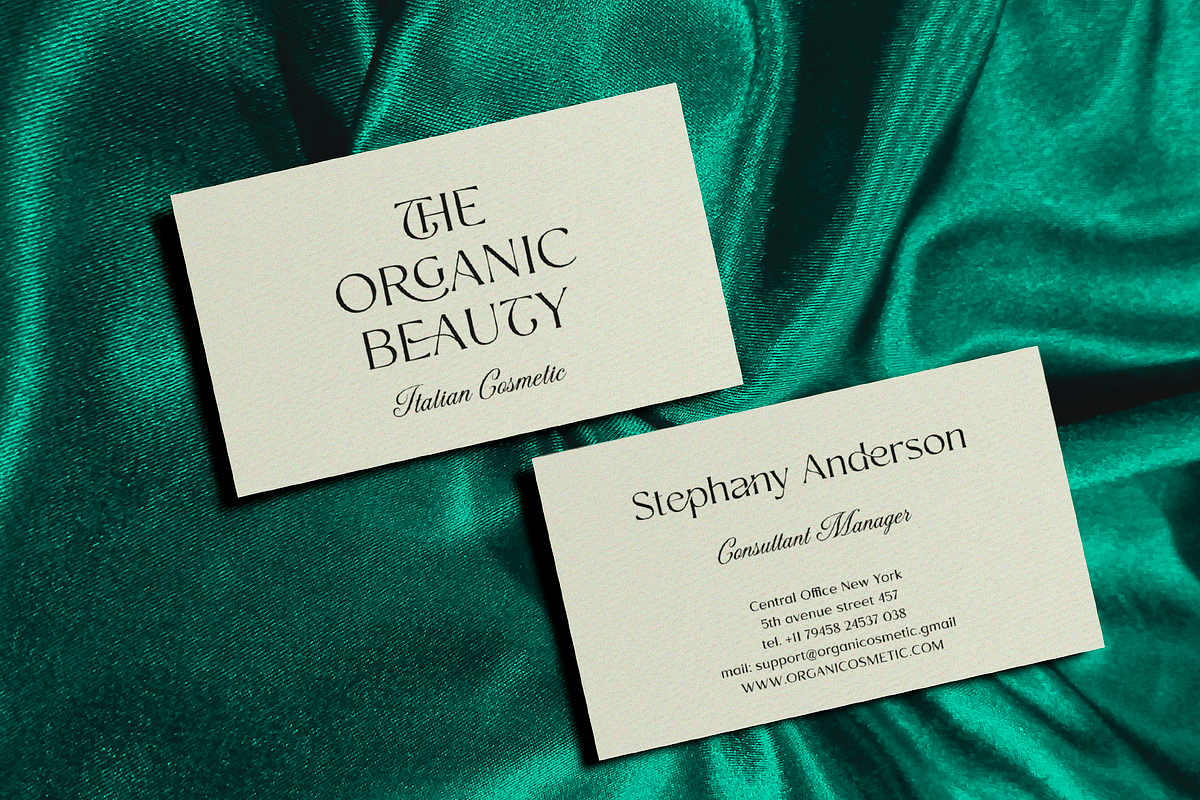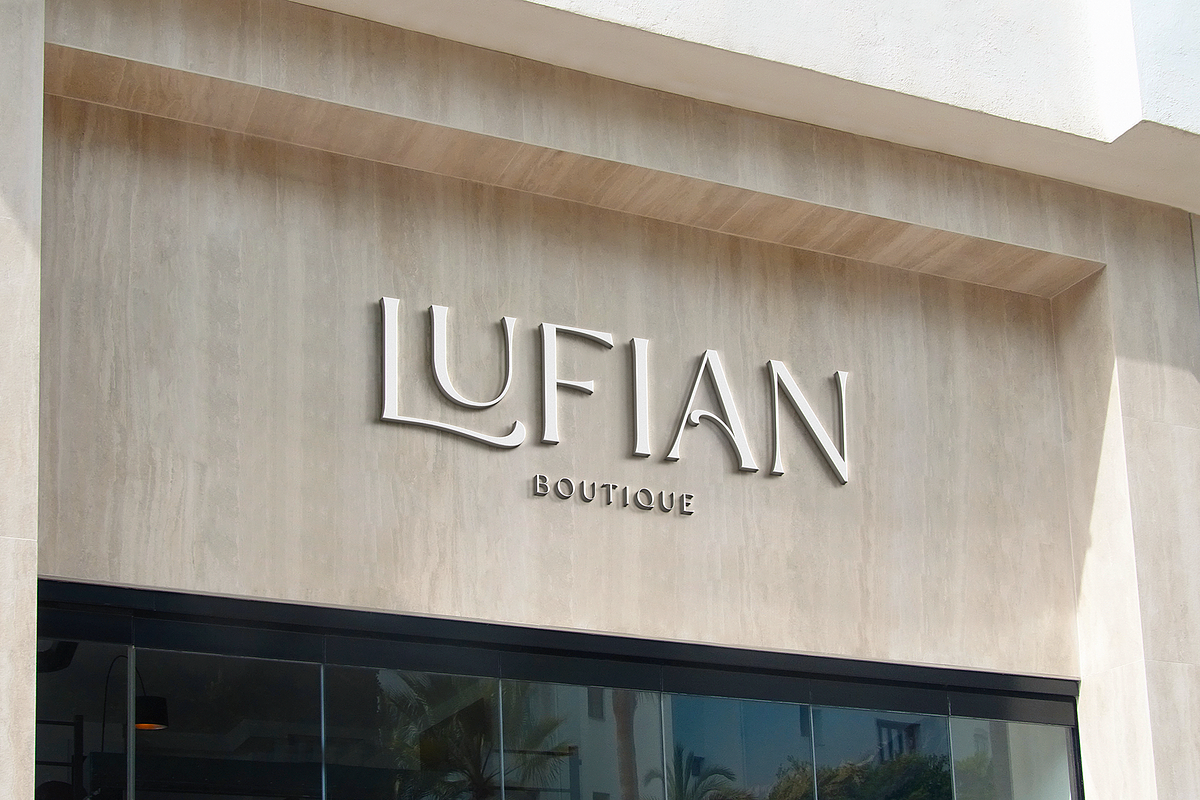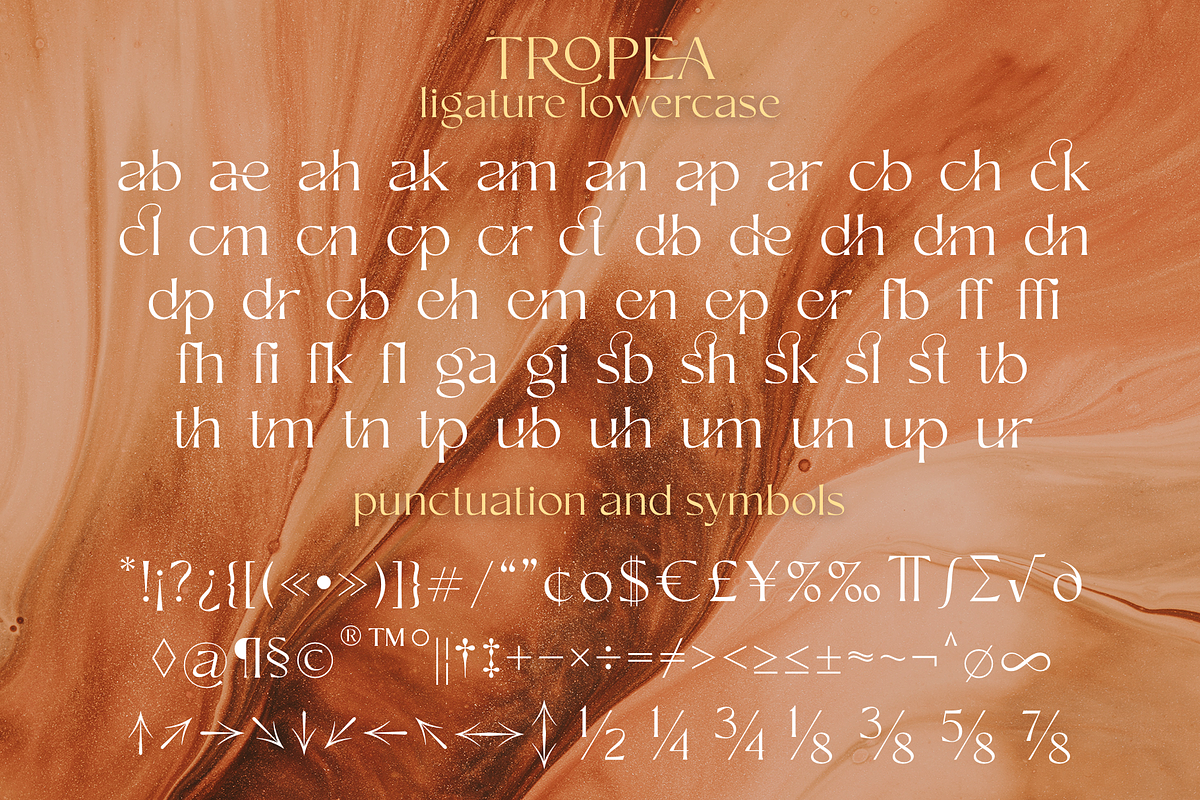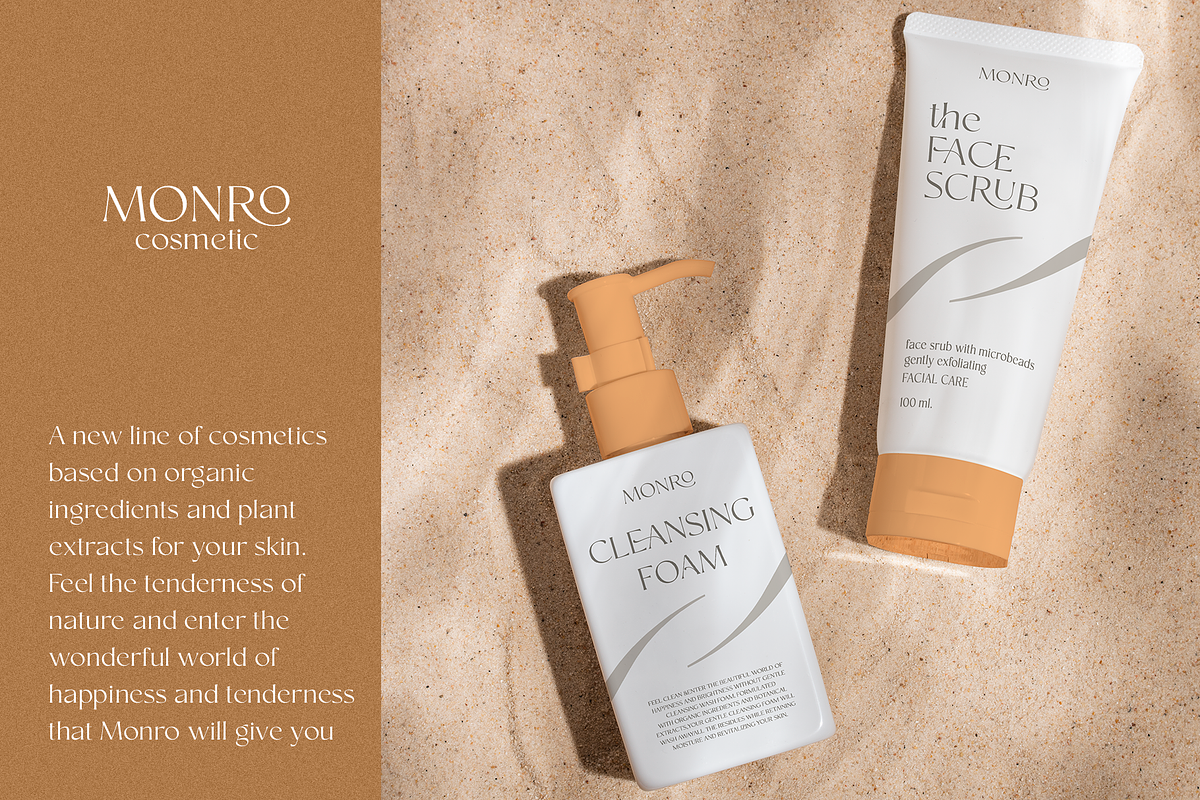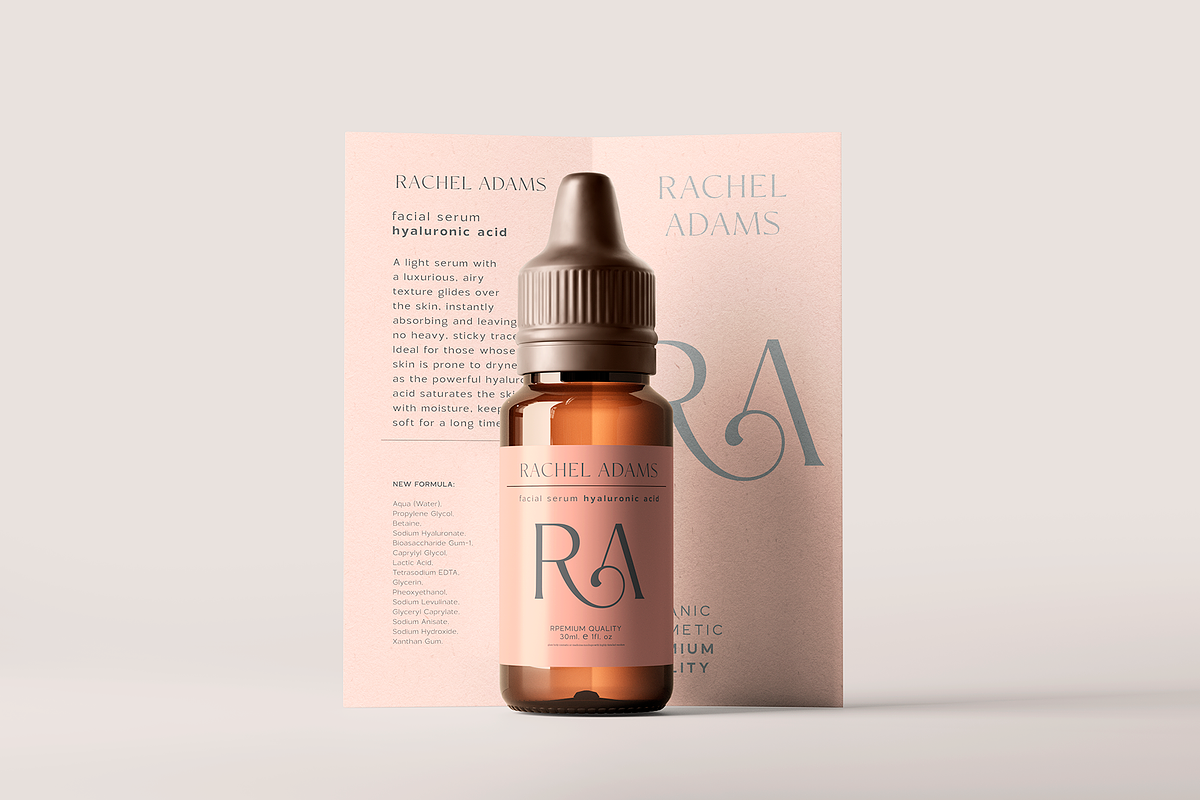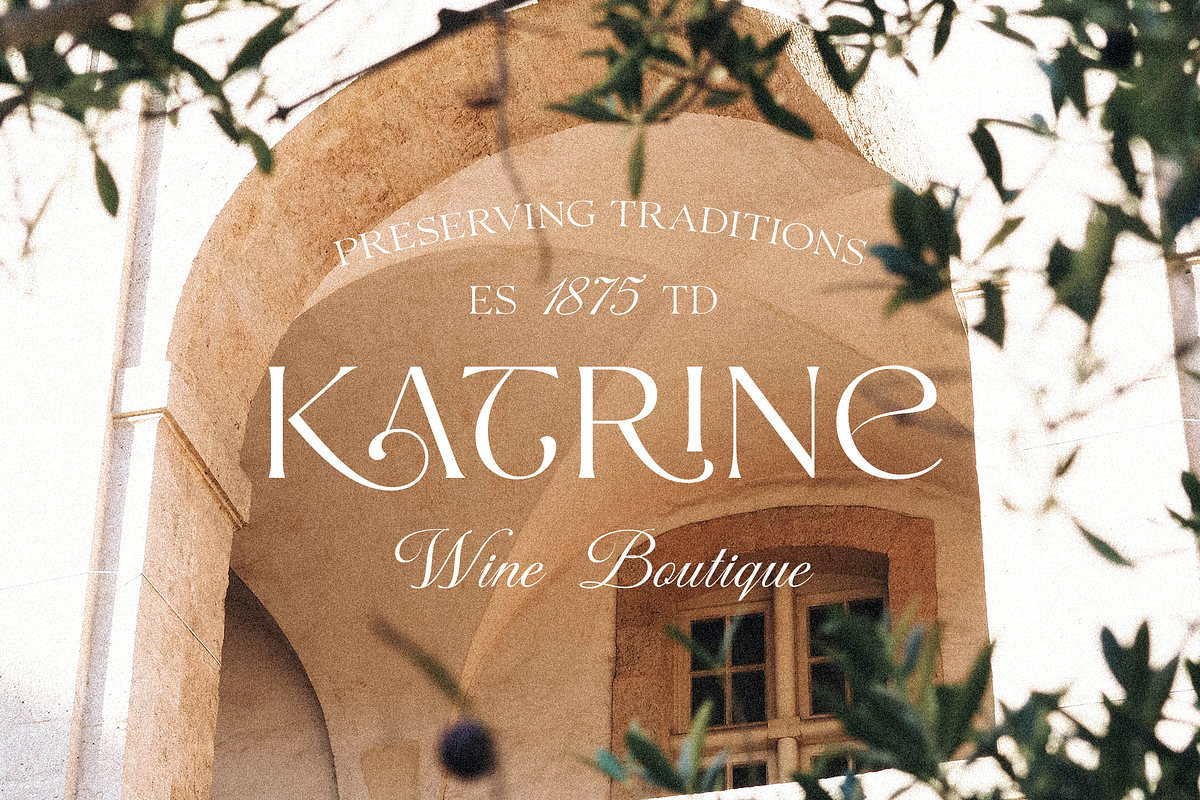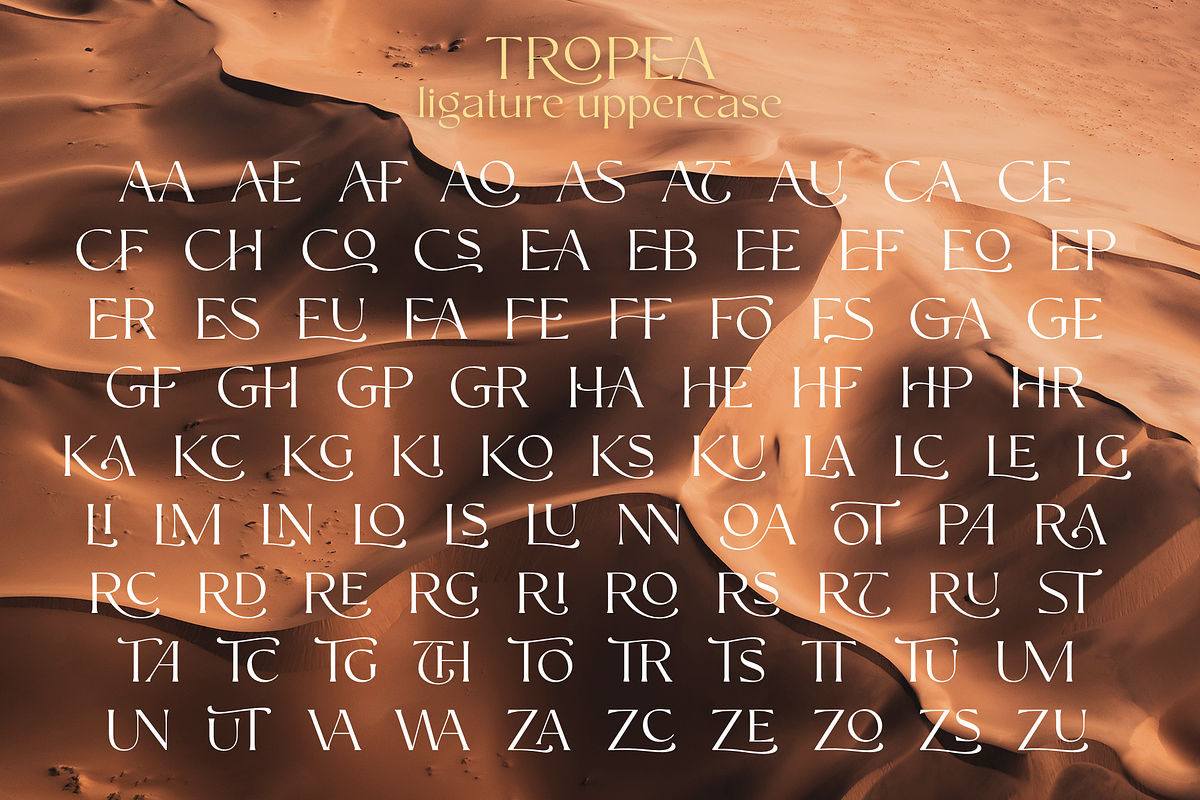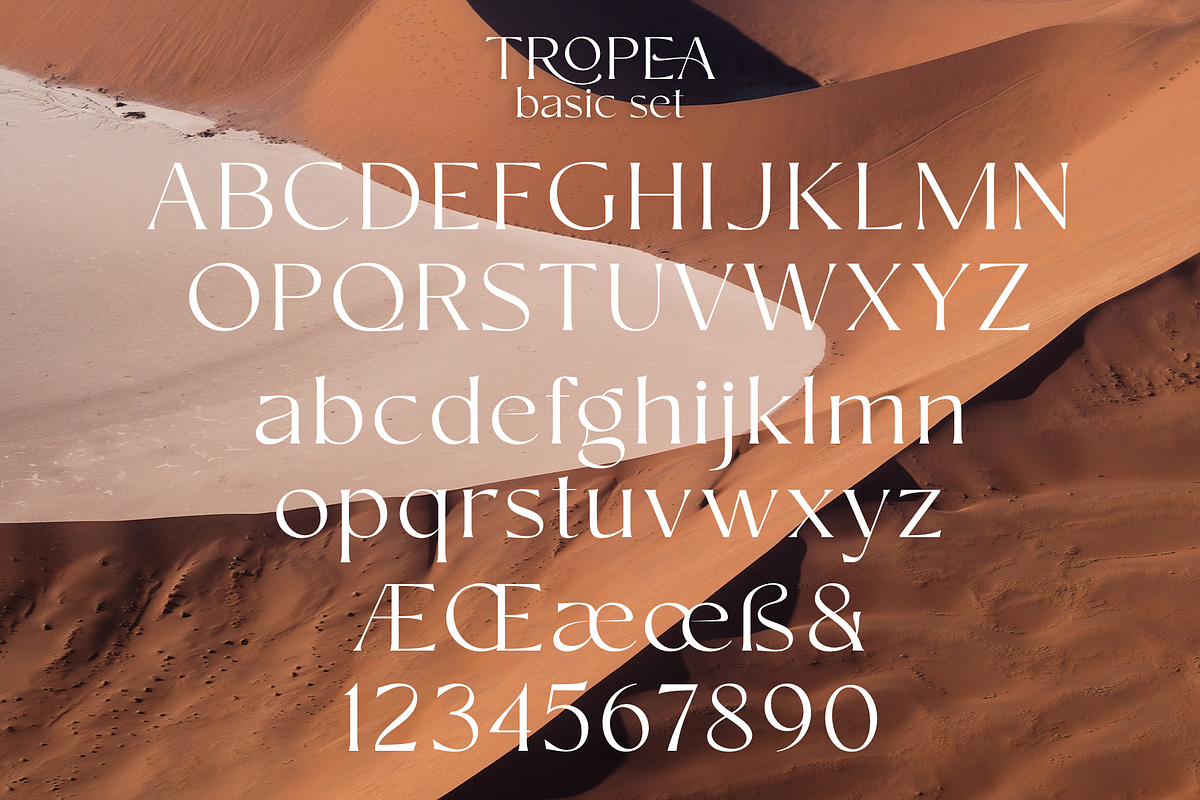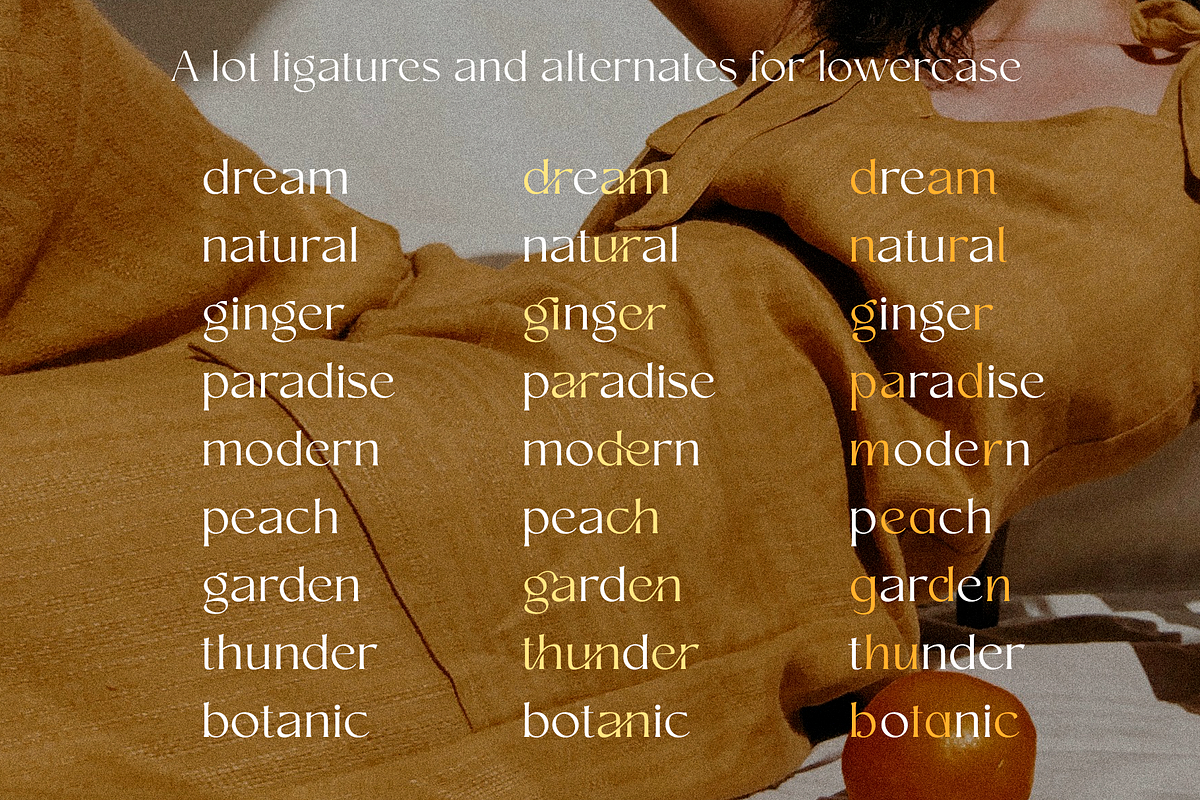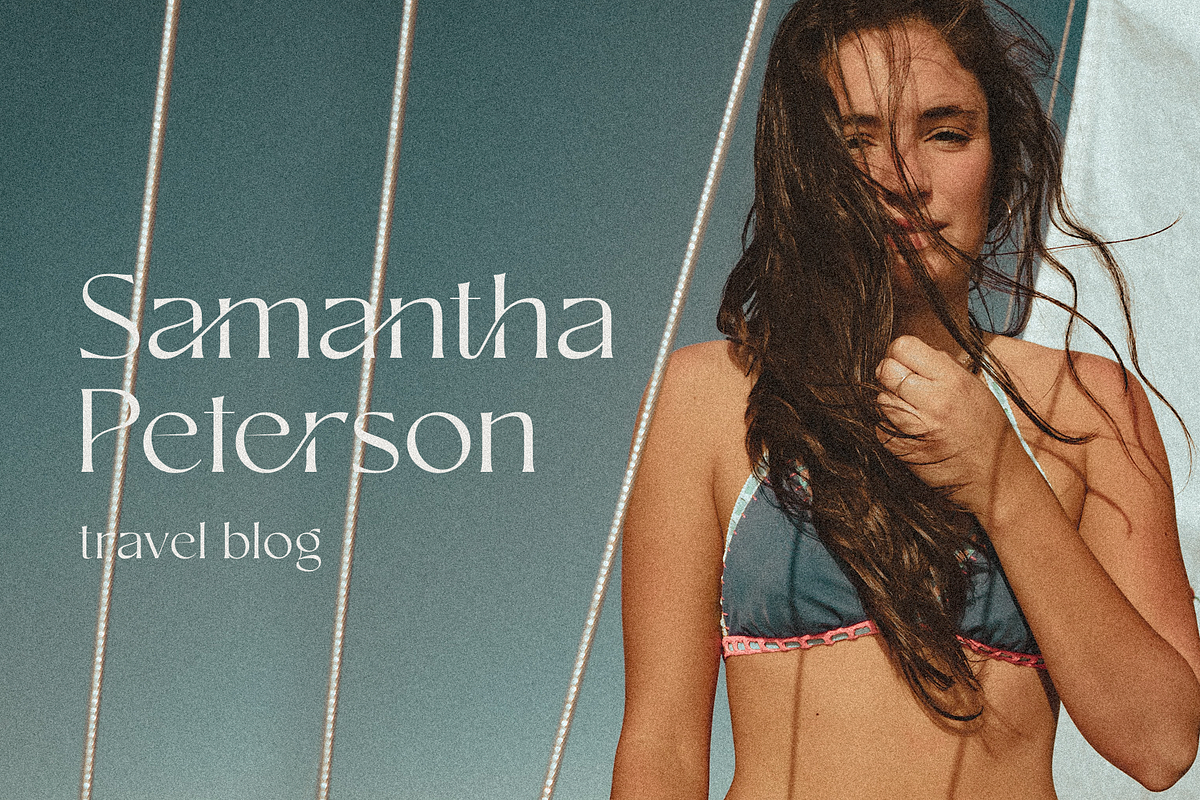
Tropea
Tropea is a elegant ligature serif font
This font has a regular weight and looks amazing in logos, branding, arranging wedding invitations, business cards, packaging, titles and much more, it is very readable and recognizable. This font includes alternates for Uppercase and Lowercase, with them you can make your project more elegant and originality. Also, this font has many ligatures for upper and lower case, they will add charm and uniqueness to your project This font is easy to use has OpenType features.
Following international symbols support: ÀÁÂÃÄÅĄÇĆÈÉÊËĘÌÍÎÏÐÑŃŁÒÓÔÕÖØÙÚÛÜŚŠŸÝŹŻŽßàáâãäåçèéêëìíîïðñòóôõöøùúûüýÿąćęłńśšźżž
Full alphabet with Uppercase and Lowercase A-z
Numbers, fractions
Punctuation and symbols
Alternates for Uppercase and Lowercase
Ligatures for Uppercase and Lowercase